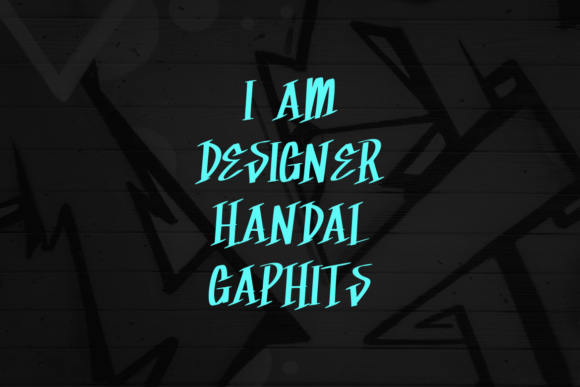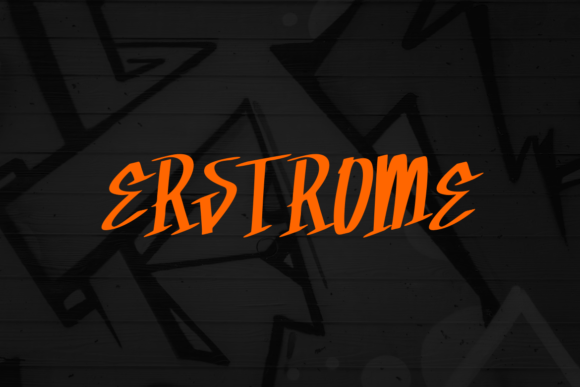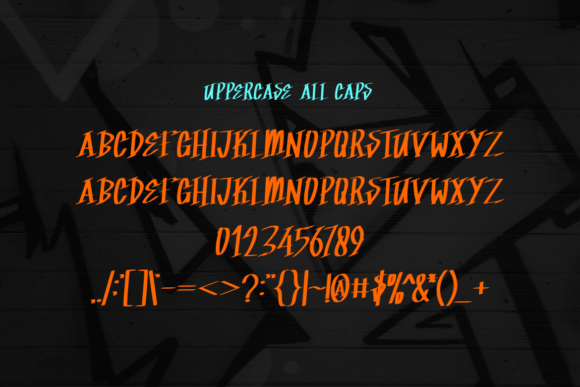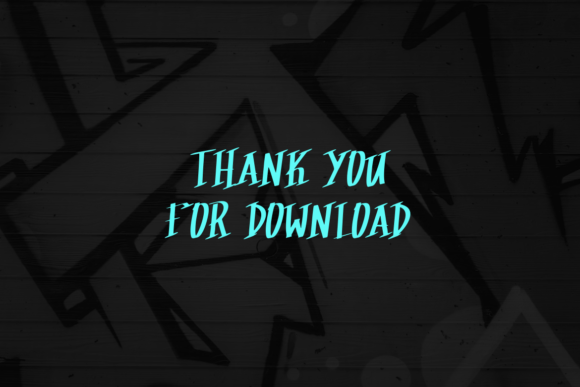
Introducing Erstrome Font: The Ultimate Graffiti-Inspired Handwritten Font
Are you tired of using the same old boring fonts in your designs? Do you want to add a touch of edginess and playfulness to your projects? Look no further than Erstrome Font, a handwritten font that looks like cool graffiti art. With its street-style vibe and fun, carefree aesthetic, Erstrome is perfect for designers and crafters who want to take their work to the next level.
The Inspiration Behind Erstrome Font
Erstrome Font is inspired by the vibrant and dynamic world of graffiti art. Graffiti has long been a staple of urban culture, providing a means of self-expression and creativity for artists and designers alike. With Erstrome, we’ve taken the raw energy and spontaneity of graffiti and distilled it into a font that’s both stylish and accessible.
Key Features of Erstrome Font
So, what makes Erstrome Font so special? Here are just a few of its key features:
- Handwritten style: Erstrome is a handwritten font, which gives it a personal and organic feel that’s perfect for adding a touch of warmth and personality to your designs.
- Graffiti-inspired aesthetic: With its bold lines, vibrant colors, and edgy style, Erstrome is the perfect font for anyone who loves graffiti art.
- Playful and fun: Erstrome has a lighthearted, carefree vibe that’s perfect for designs that need a bit of humor and whimsy.
- Street-style vibe: Erstrome has a distinctly urban feel that’s perfect for designers who want to add a touch of street cred to their work.
Uses for Erstrome Font
So, what can you use Erstrome Font for? The possibilities are endless! Here are just a few ideas to get you started:
- Graphic design projects: Erstrome is perfect for graphic design projects that need a bit of edge and personality, such as posters, flyers, and brochures.
- Social media graphics: Add a touch of fun and whimsy to your social media graphics with Erstrome Font.
- Crafting and DIY projects: Erstrome is perfect for crafters and DIY enthusiasts who want to add a personal touch to their projects, such as handmade cards, gift tags, and scrapbooking pages.
- Branding and advertising: Erstrome can be used to add a bit of personality and edge to branding and advertising projects, such as logos, business cards, and billboards.
Tips for Using Erstrome Font
Here are a few tips for getting the most out of Erstrome Font:
- Experiment with colors: Erstrome looks great in bold, vibrant colors, so don’t be afraid to get creative and try out different color schemes.
- Mix and match: Combine Erstrome with other fonts and graphics to create a unique and eye-catching design.
- Keep it simple: Don’t overcomplicate your design – Erstrome is perfect for simple, bold statements.